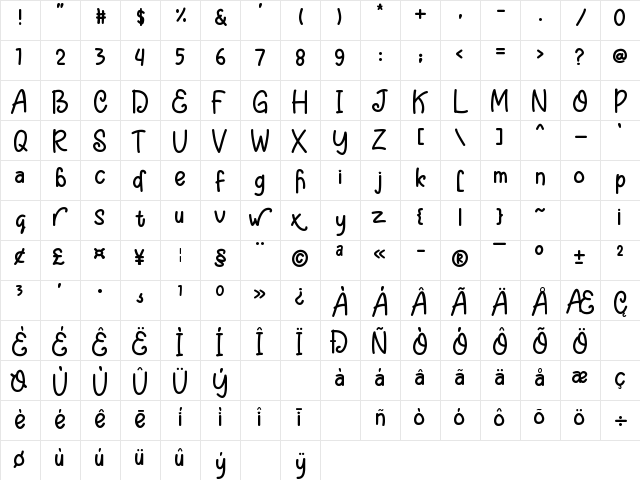
Wished Regular
| Designer | Riyadh Rahman |
Design Context for Wished Typeface
Wished is a composed and adaptable typeface that performs quietly and consistently across a wide range of design contexts.